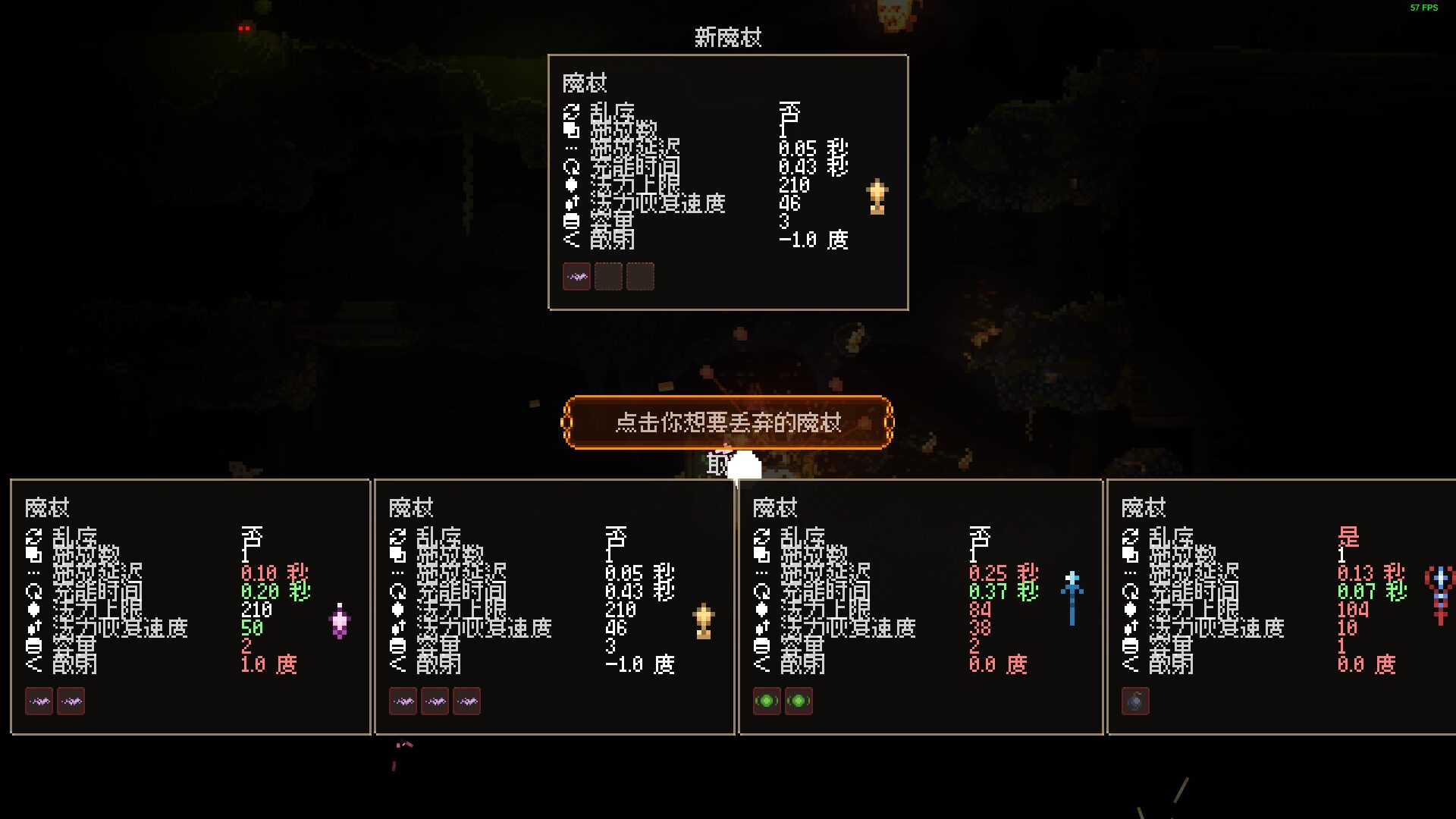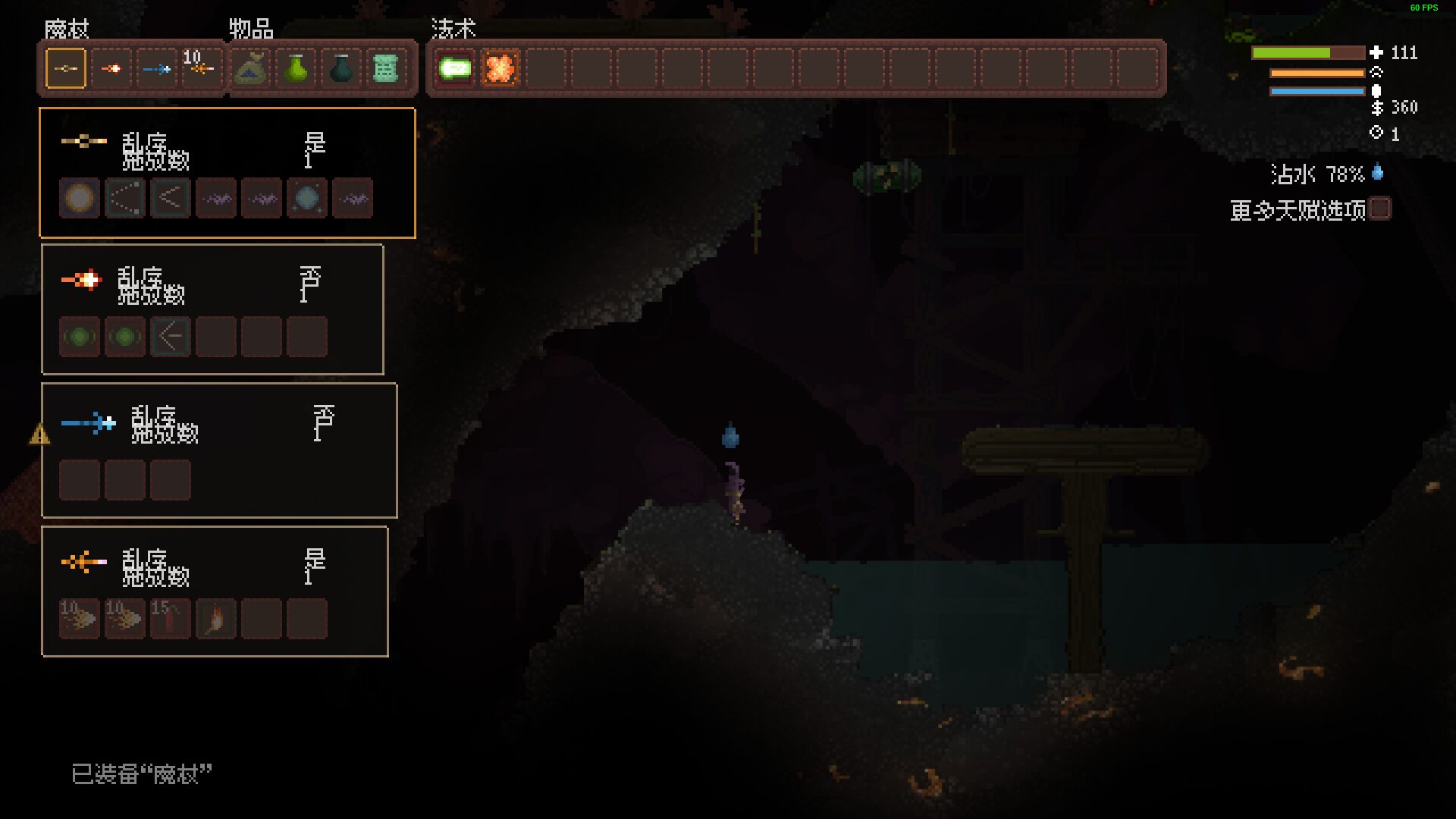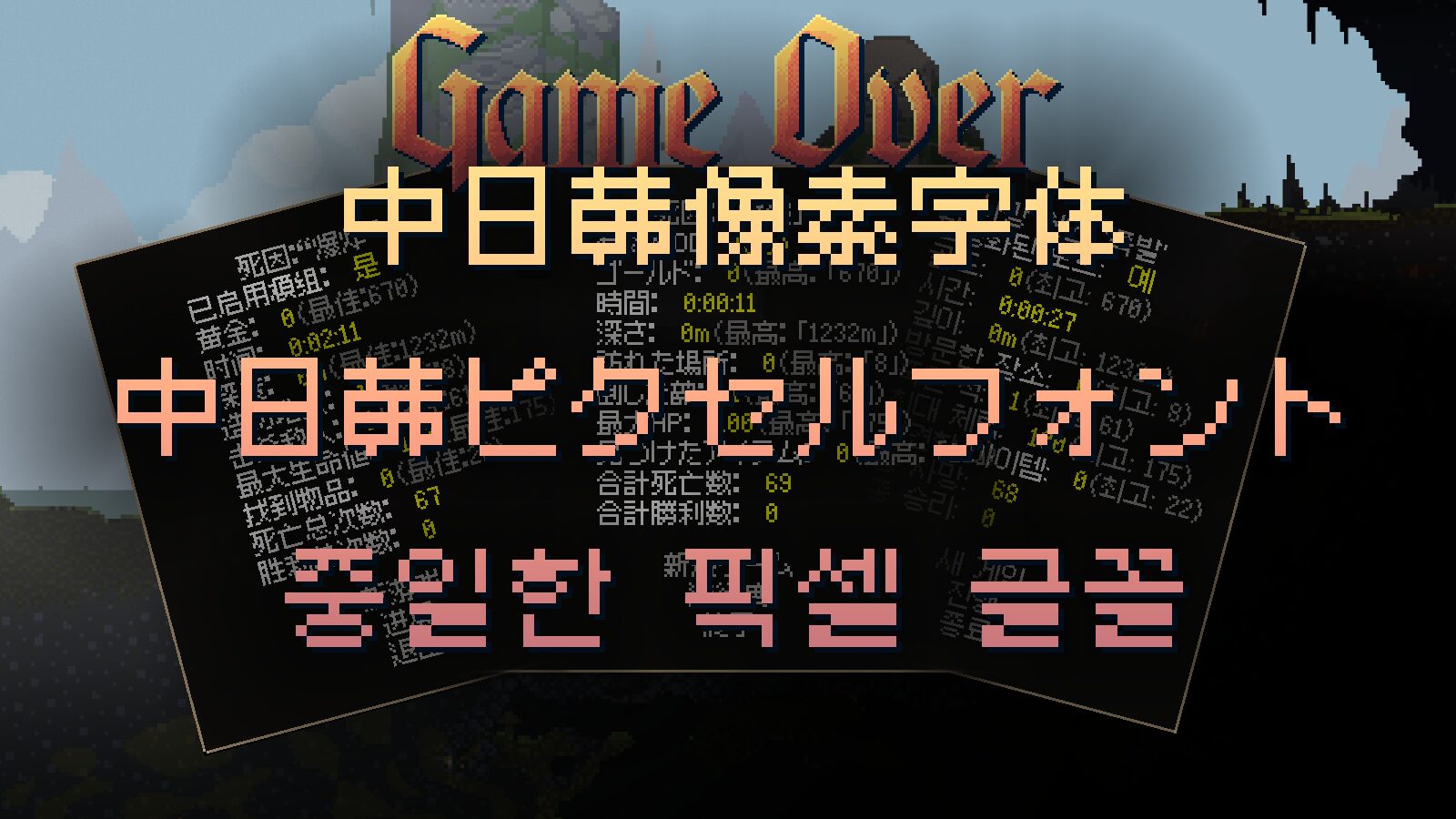
CJK Pixel Font
Enhance Your Noita Experience with CJK Pixel Fonts
Delve deeper into the arcane world of Noita with the CJK Pixel Font mod, a meticulously crafted addition designed to bring the beauty of Chinese, Japanese, and Korean characters to your perilous journey. For players who appreciate the finer details and immersive qualities of Noita, this mod offers a visually distinct and culturally rich experience, seamlessly integrating authentic pixel fonts into the game’s already captivating aesthetic.
A Fusion of Style and Functionality
At its core, the CJK Pixel Font mod leverages the distinctive Fusion Pixel Font to render these East Asian scripts. This choice ensures that the new character sets not only fit perfectly within Noita’s established pixel-art style but also maintain legibility and charm. Whether you’re encountering ancient runes, cryptic scrolls, or simply enjoying the nuanced visual storytelling Noita provides, this mod elevates the presentation of vital information and environmental details.
Key Features of the CJK Pixel Font Mod:
- Authentic Chinese, Japanese, and Korean character support.
- Seamless integration with Noita’s existing pixel art aesthetic.
- Utilizes the distinctive Fusion Pixel Font for consistent visual style.
- Enhances immersion through culturally relevant and legible text.
- A must-have for players seeking a more nuanced and detailed Noita playthrough.
Why Choose CJK Pixel Fonts for Noita?
Noita is a game that rewards exploration, experimentation, and a keen eye for detail. The CJK Pixel Font mod aligns perfectly with this philosophy. By providing accurate and stylish representation for these languages, it opens up new avenues for appreciation, especially for players who may have a connection to these cultures or simply admire the artistry involved. It transforms potentially overlooked text elements into integral parts of the world, making every inscription and signpost a more meaningful encounter.